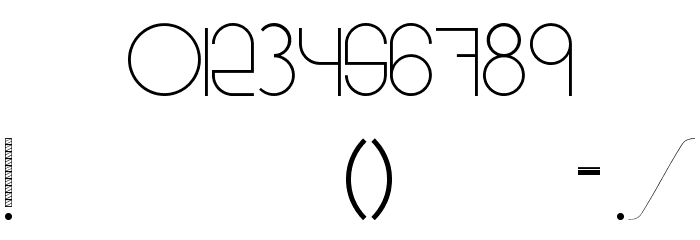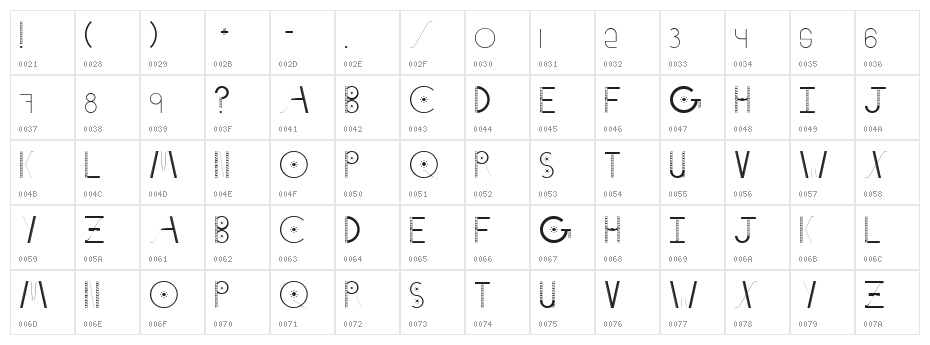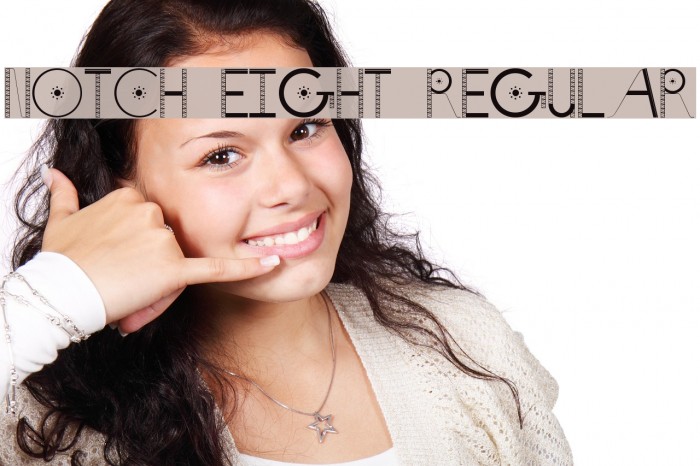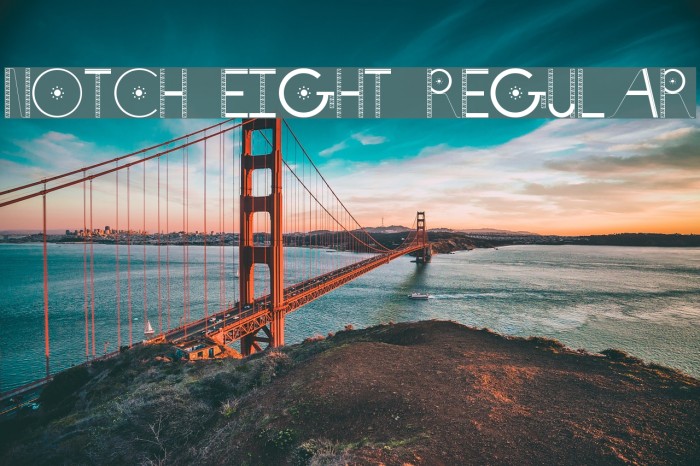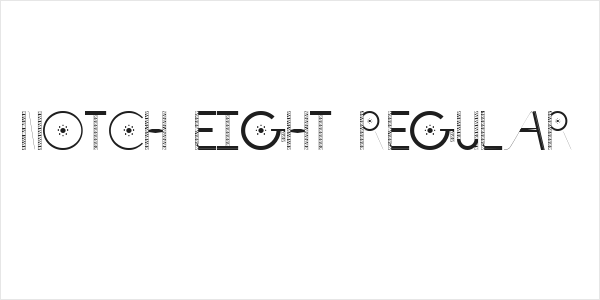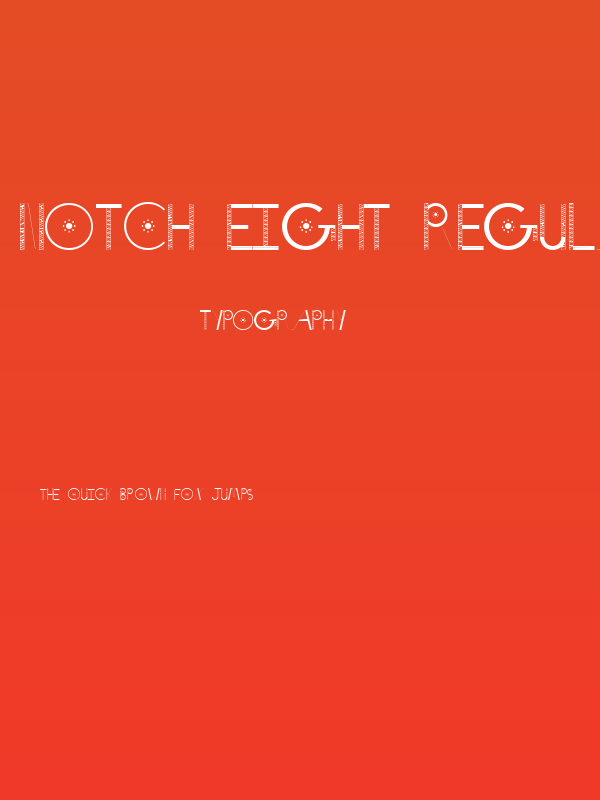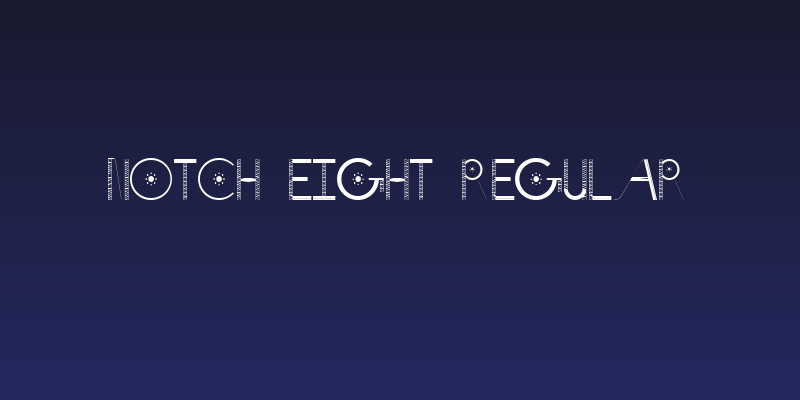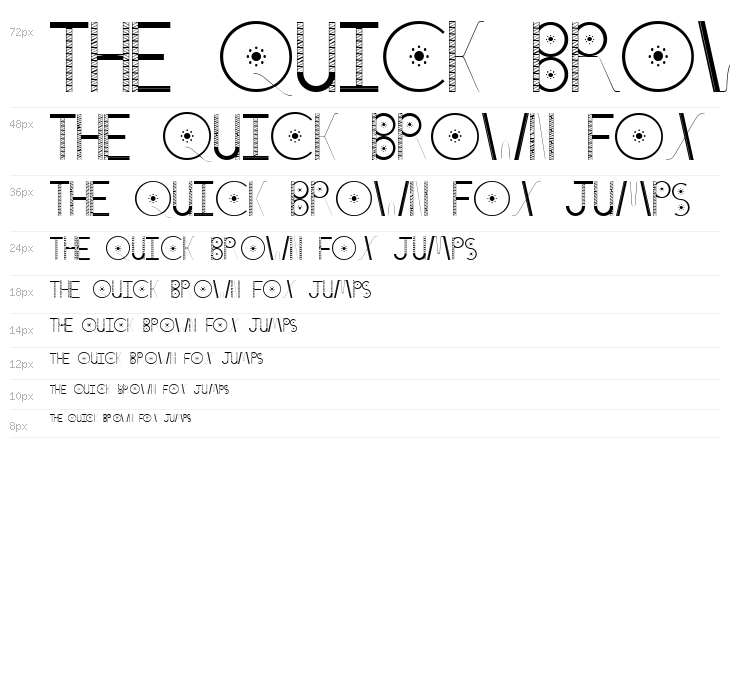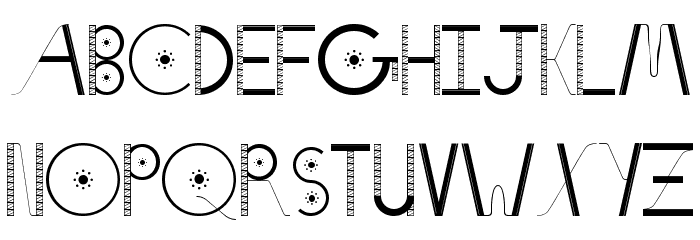
Notch Eight Regular Font
Notch Eight Regular Description
This font features a unique and artistic design, combining elements of geometric shapes with intricate detailing. The uppercase letters are characterized by bold, circular forms and decorative patterns, giving them a modern and avant-garde appearance. The lowercase letters maintain a consistent style, with a mix of thin and thick strokes that add visual interest. Numbers are sleek and streamlined, complementing the overall aesthetic. Special characters are creatively designed, incorporating the same geometric and decorative elements. This font stands out with its high contrast and distinctive style, making it suitable for eye-catching designs.
| Proposed Projects | Ideal for branding, posters, album covers, and any project requiring a bold, artistic touch. |